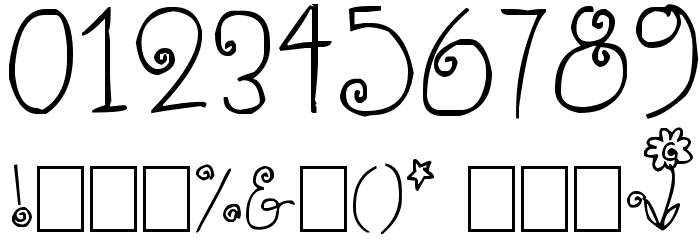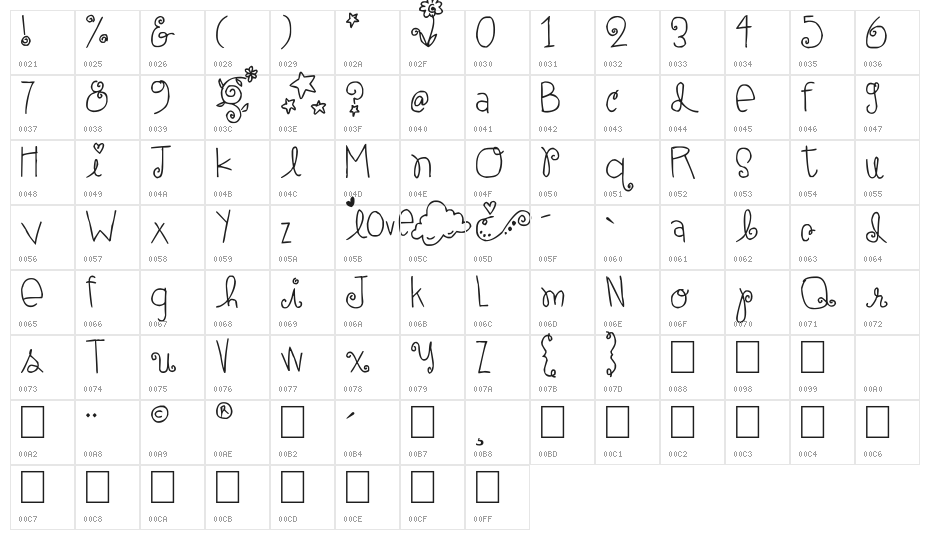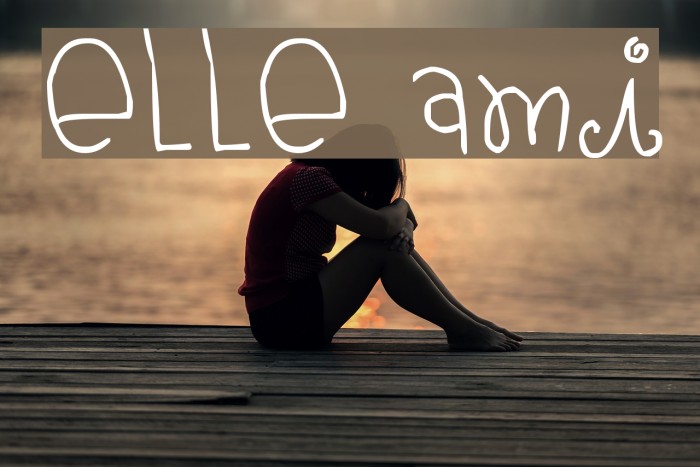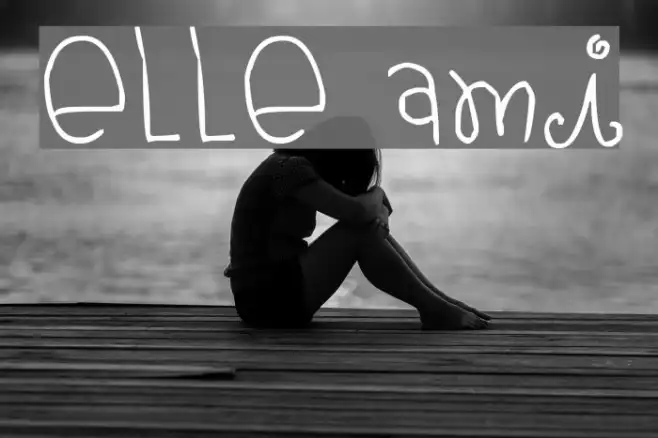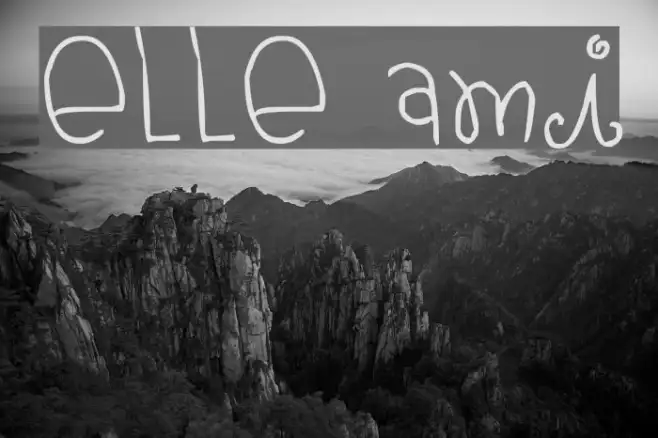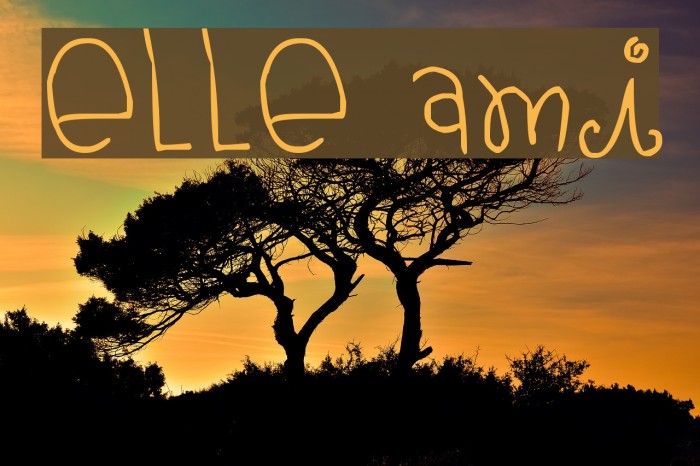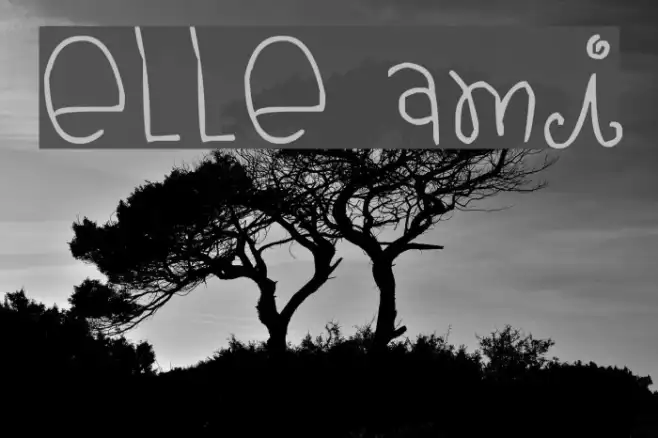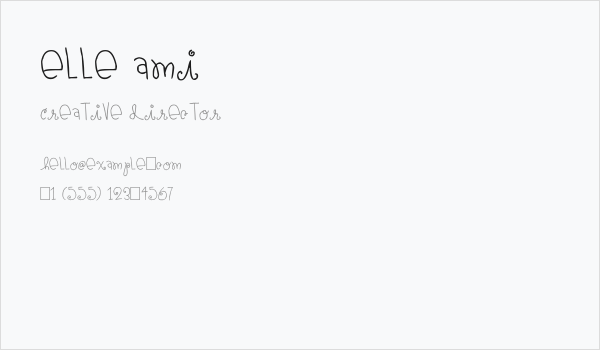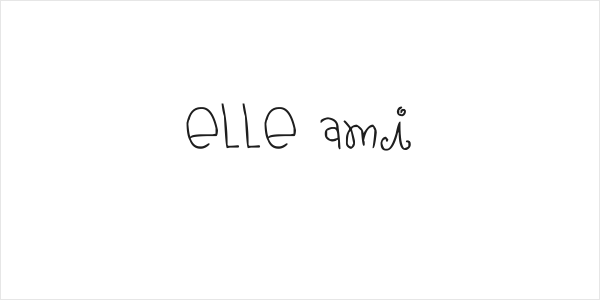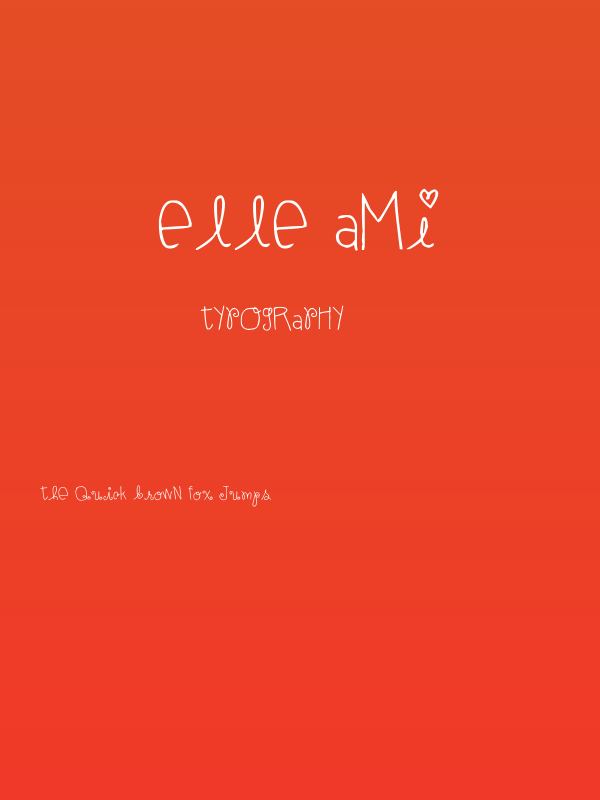
elle ami Font
elle ami Description
This whimsical and playful font features a hand-drawn style with unique, curly embellishments on many of the characters. The uppercase letters are tall and slender, often incorporating heart or spiral motifs, while the lowercase letters maintain a consistent, flowing appearance. Numbers are bold and rounded, matching the overall quirky aesthetic. Special characters include charming, decorative elements that enhance the font's playful nature. The font's irregular lines and artistic flair make it stand out, offering a sense of creativity and fun.
| Proposed Projects | Ideal for children's books, playful branding, greeting cards, and creative invitations. |